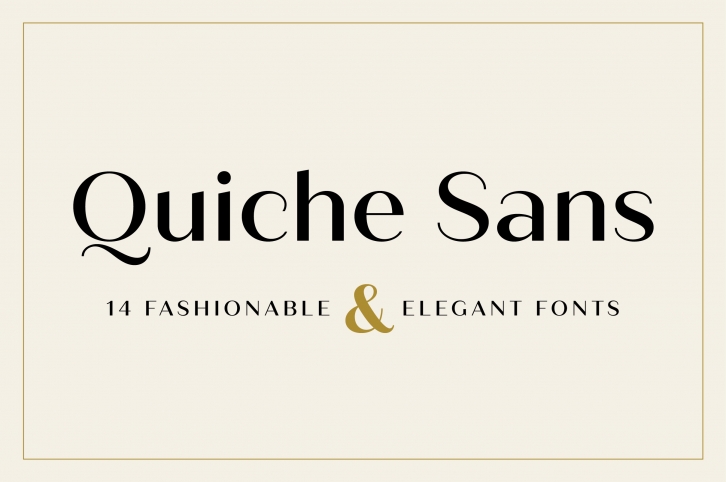
Quiche Sans Family is a great font that was designed by Adam Ladd. Imagine the amount of combinations you can create using this font! The archive is 16.29 MB and it was released on September 26, 2018. Quiche Sans Family looks beautiful on wedding invitations, greeting cards, logos, posters, labels, t-shirt designs, logos, business cards and is perfect for use in ink or watercolor works, fashion, magazines, packaging and food menus, children's books and more!